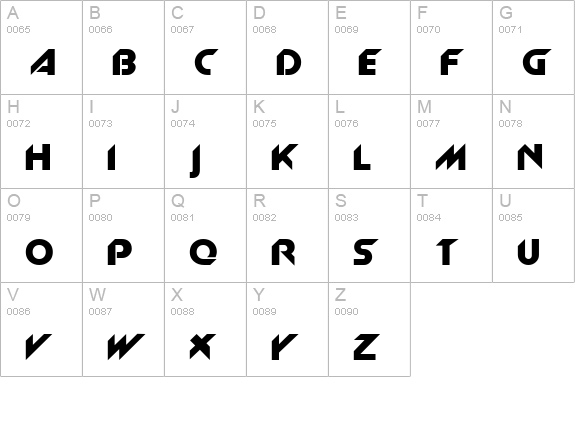
Machine Normal is the standard, neutral variant in the Machine typeface family \xE2\x80\x94 well suited to general body text, paragraphs, and standard typographic work.
Machine Normal is a versatile and sleek font that effortlessly blends modernity with a touch of retro charm. Its clean lines and geometric shapes make it perfect for a wide range of design projects, whether you're creating a logo, designing a website, or crafting eye-catching headlines. This font exudes a sense of professionalism and precision, making it an excellent choice for businesses and brands that want to convey a sense of trust and reliability. Its balanced letterforms and even spacing ensure readability across various mediums, making it equally suitable for print and digital applications. One of the best features of Machine Normal is that it is freely available to download at FontsMarket.com. This means that designers, creatives, and enthusiasts can access this stunning font without any cost. The availability of Machine Normal for free allows for greater accessibility and creative freedom, empowering designers to bring their visions to life without breaking the bank. Whether you're a seasoned professional or an aspiring designer, Machine Normal is a font that will undoubtedly enhance your creative projects. Its timeless appeal, combined with its availability for free download, makes it a must-have addition to your font library. So why wait? Discover the power of Machine Normal today and unlock a world of design possibilities.